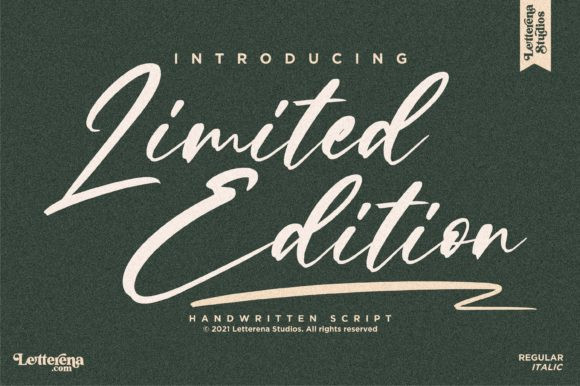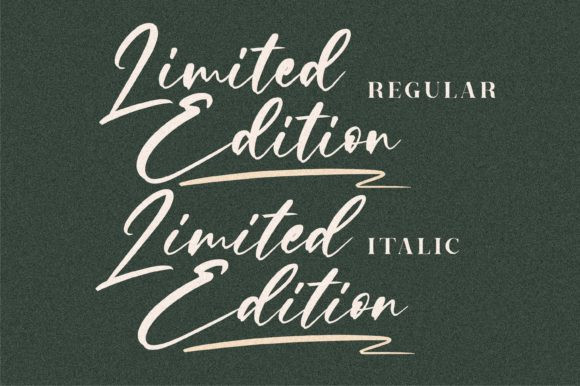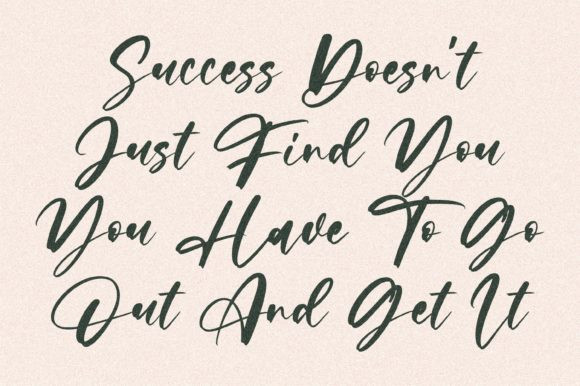
Limited Edition Font
Limited Edition is a lovely paint brushed script font. It looks beautiful on a variety of designs requiring a personalized style, such as wedding invitations, thank you cards, weddings, greeting cards, logos and so on.